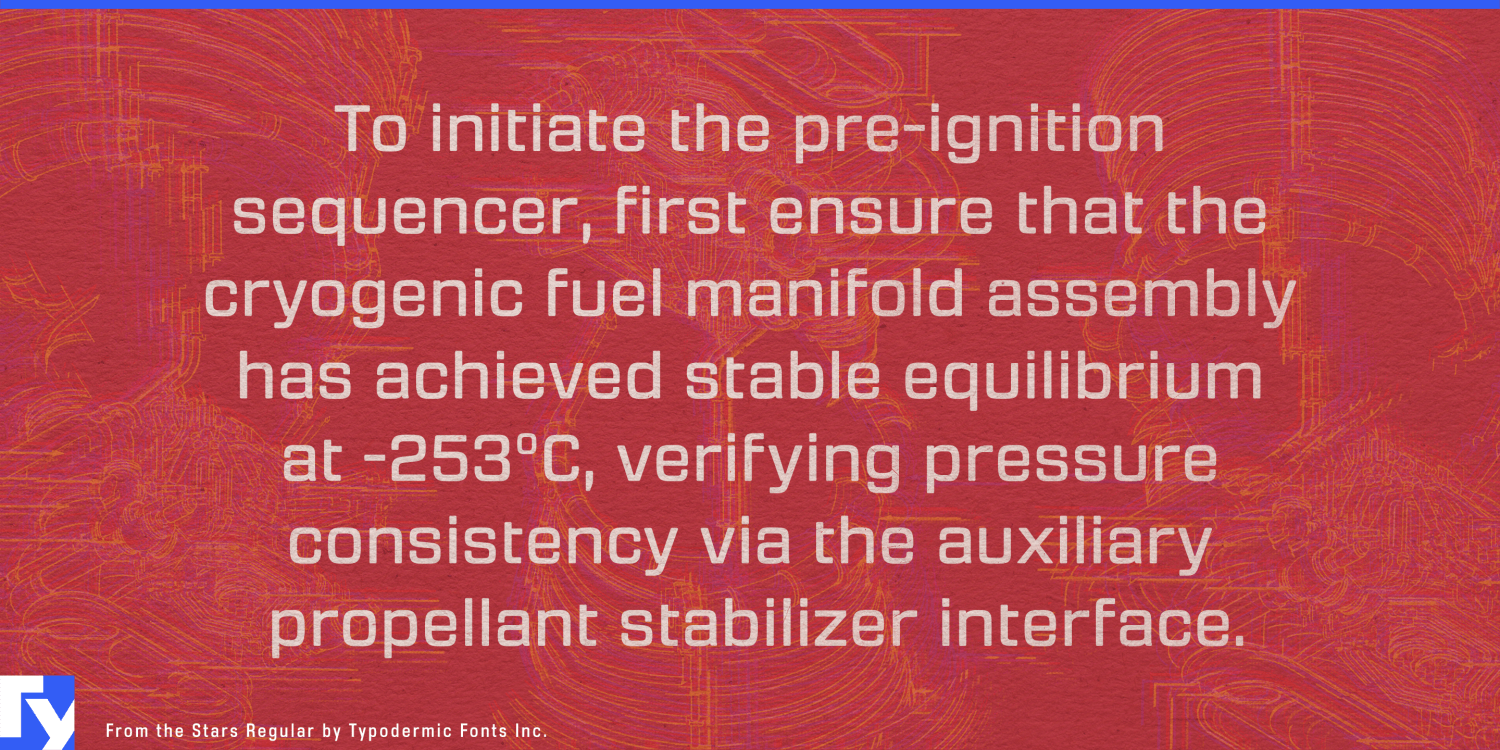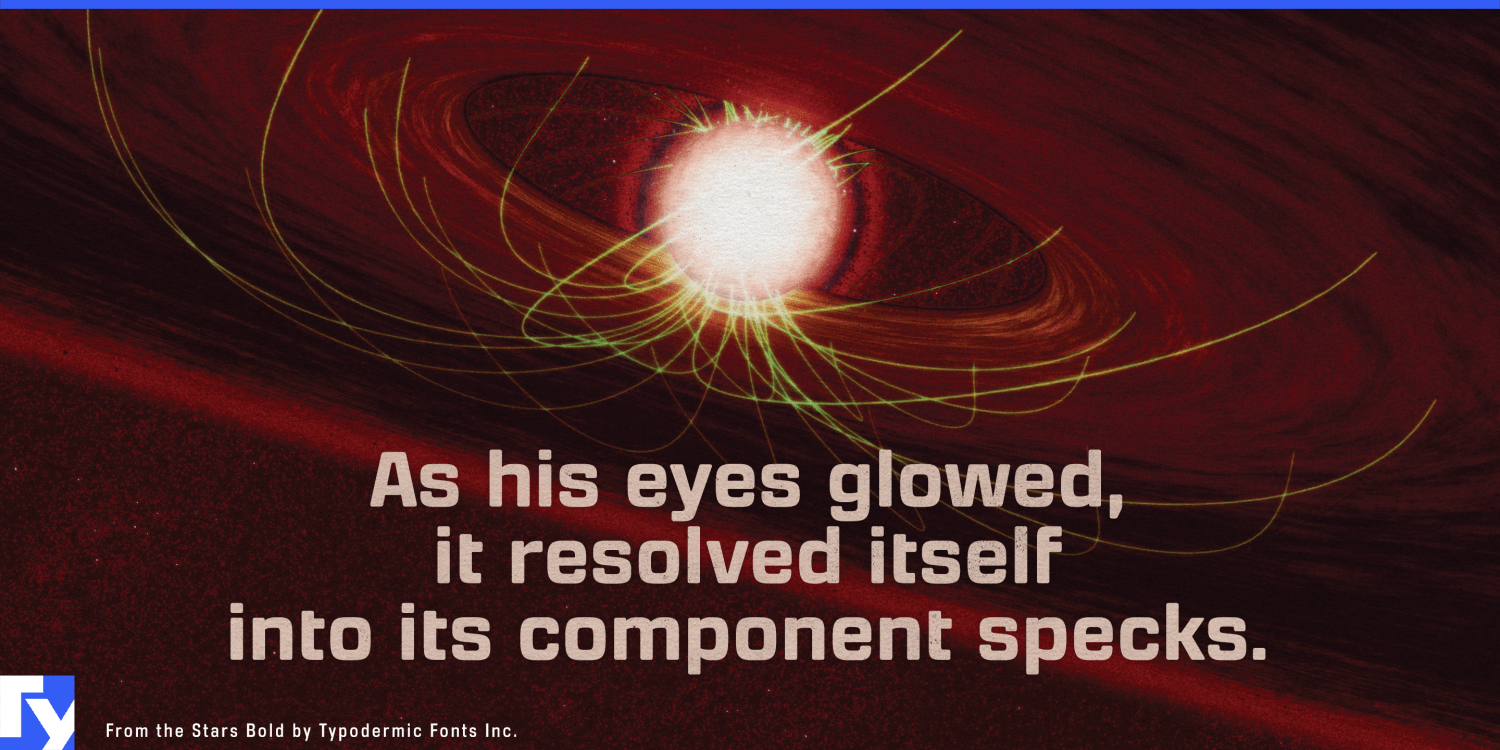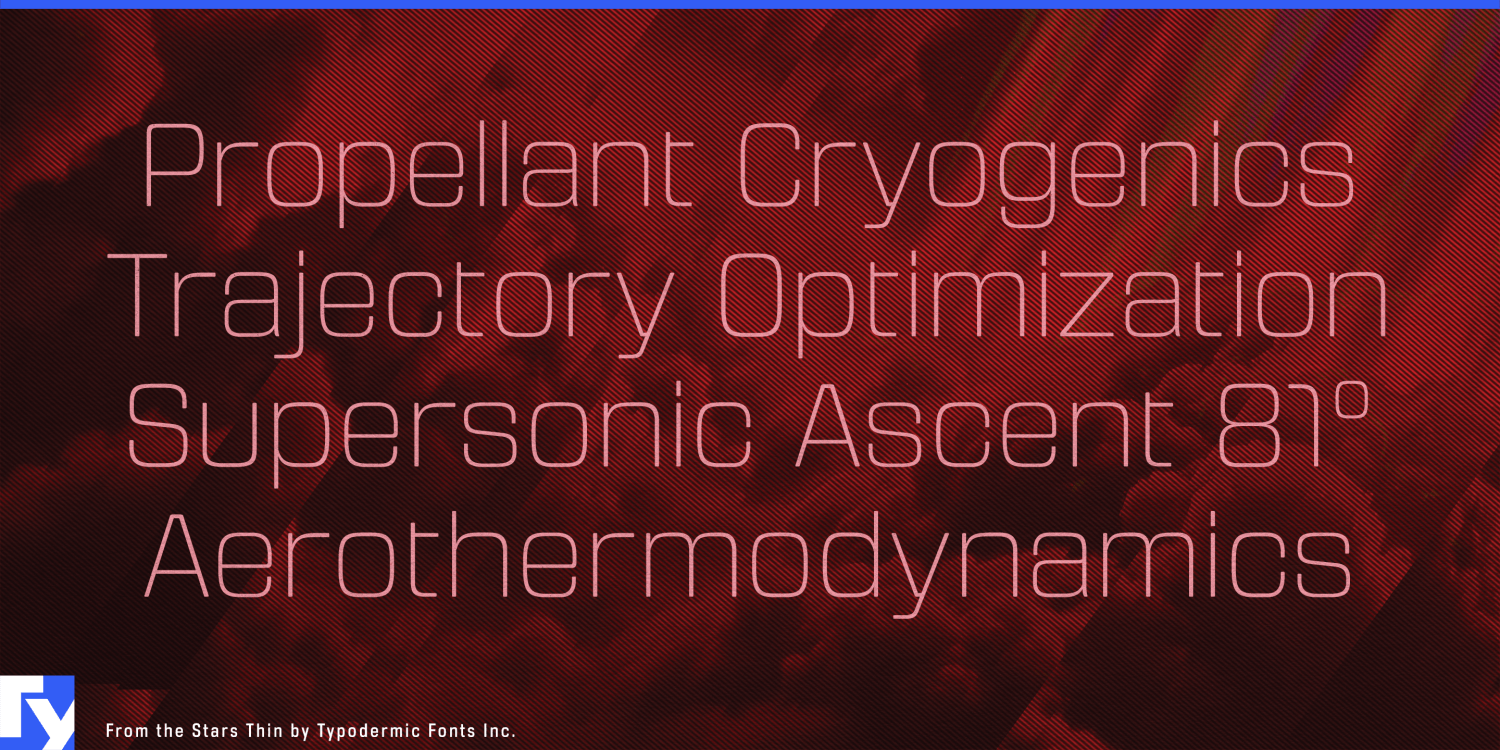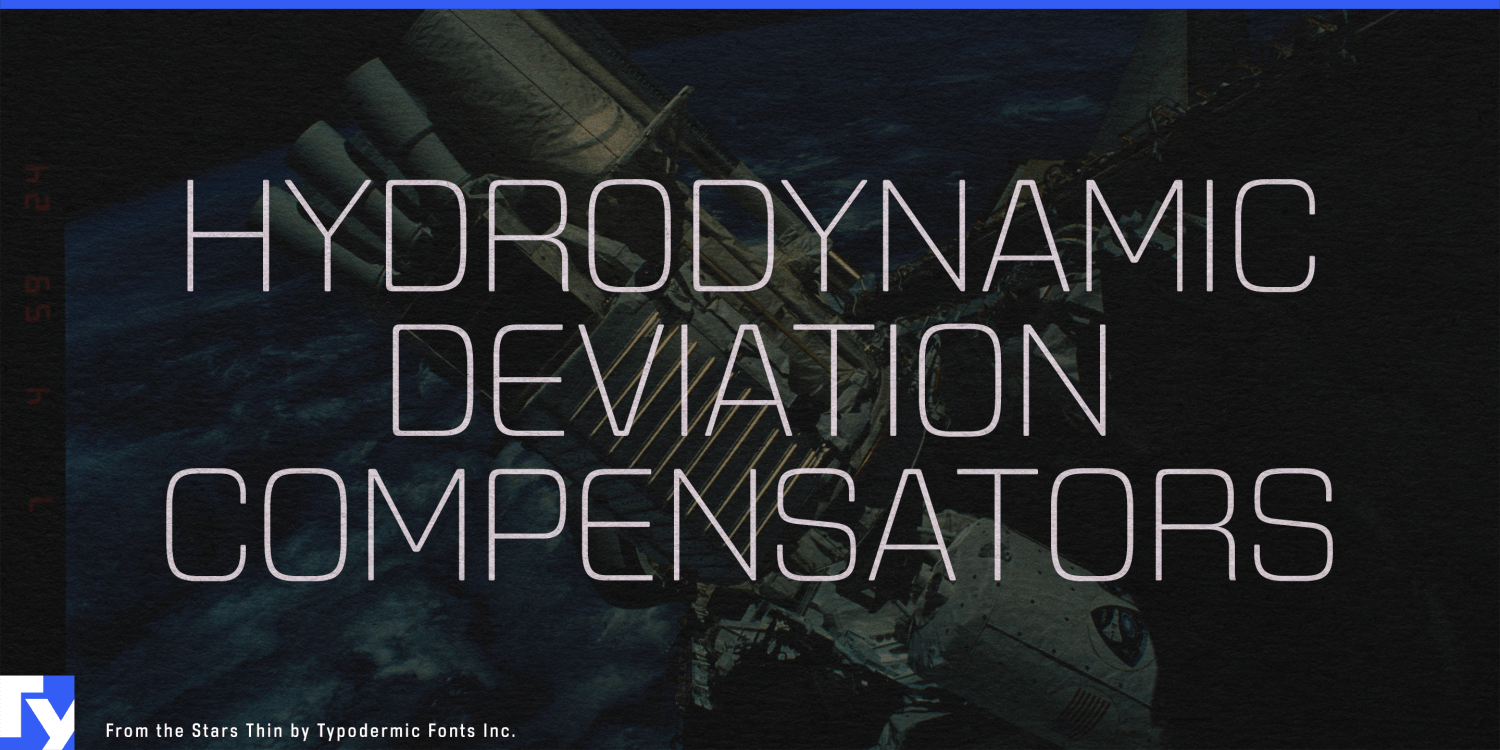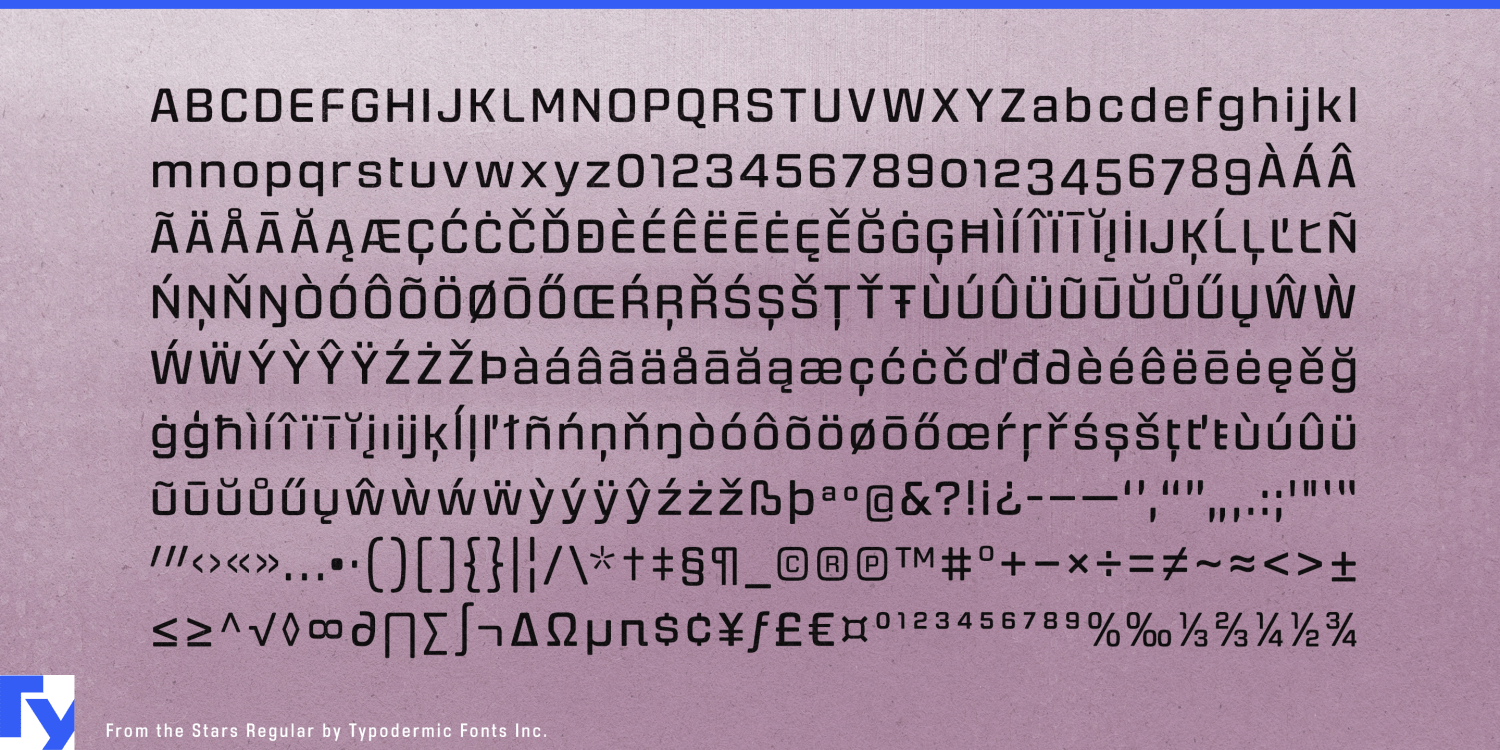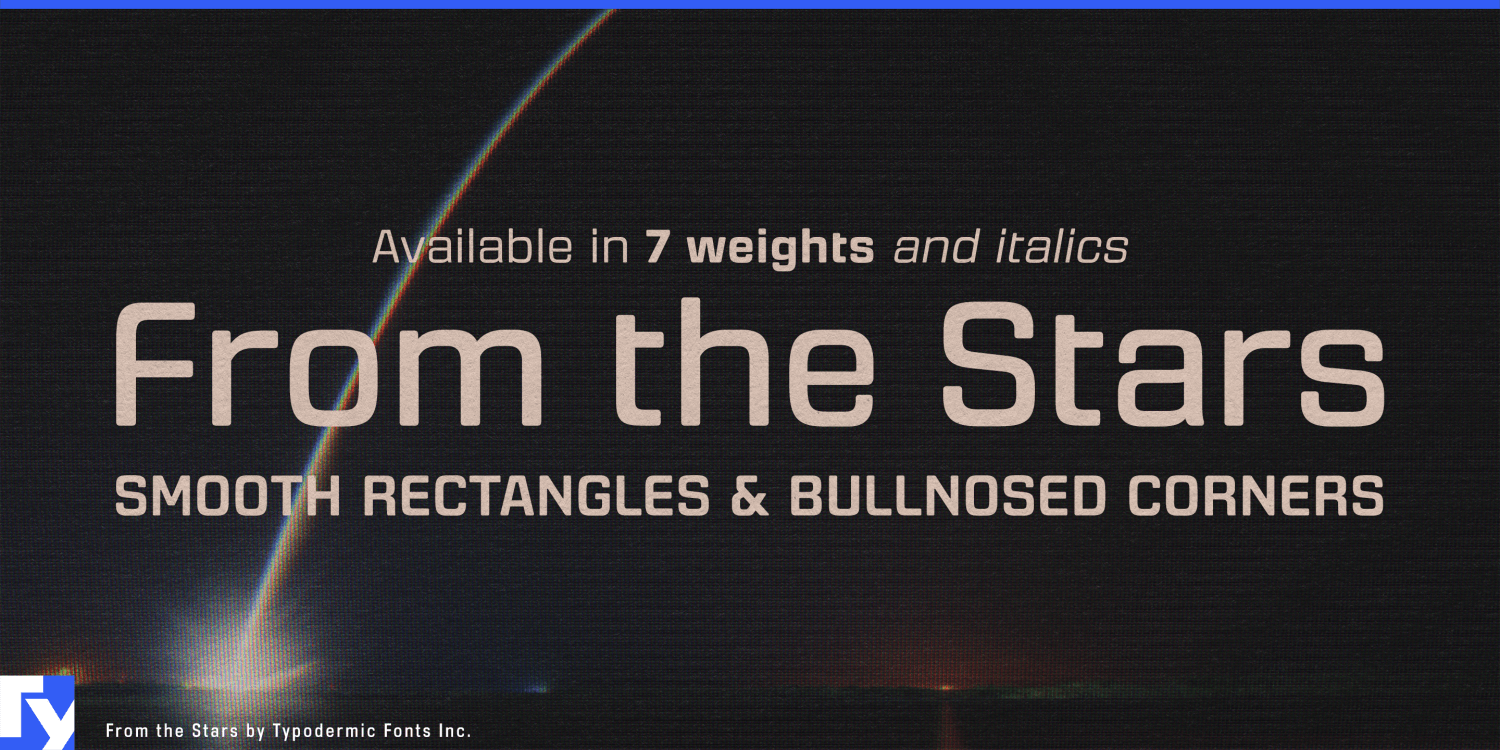
From the Stars
From the Stars descends from the digital cosmos, a sans-serif rectilinear typeface that masterfully balances technical precision with an unexpected touch of softness. This font family is the culmination of industrial design aesthetics, offering a fresh…